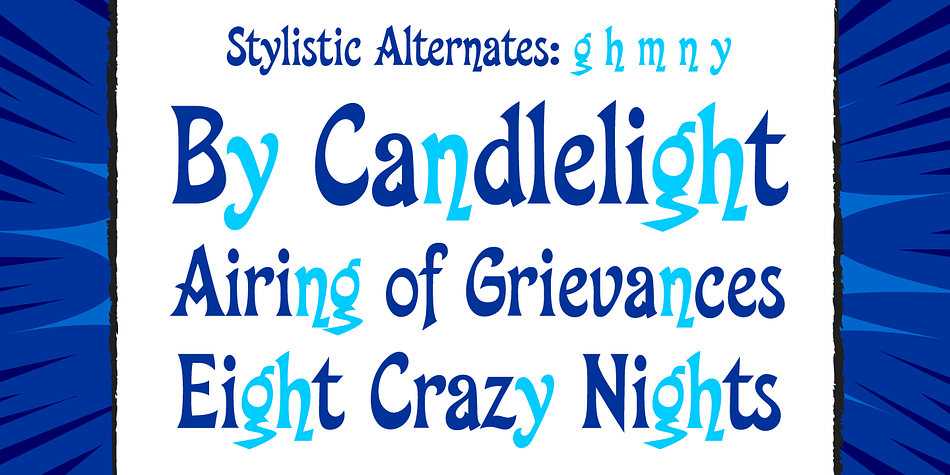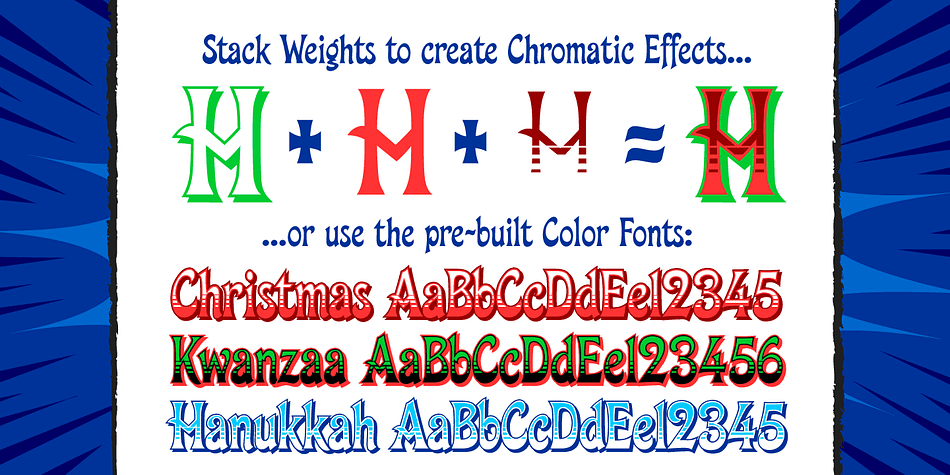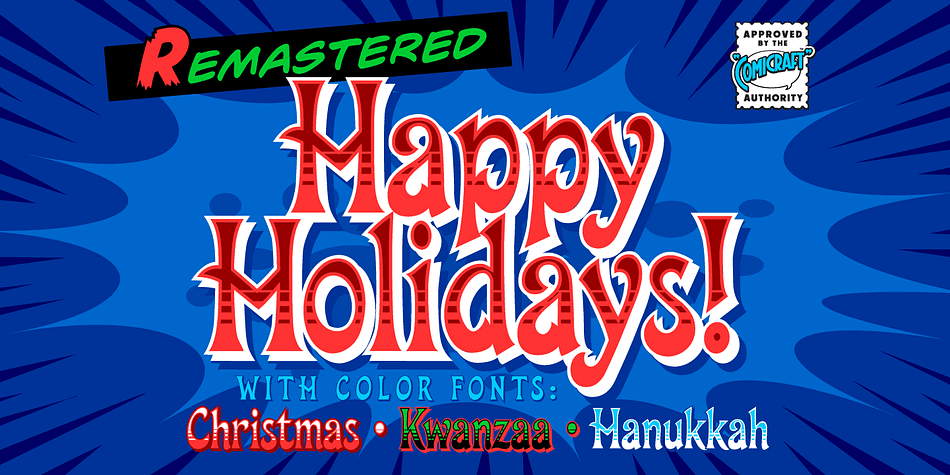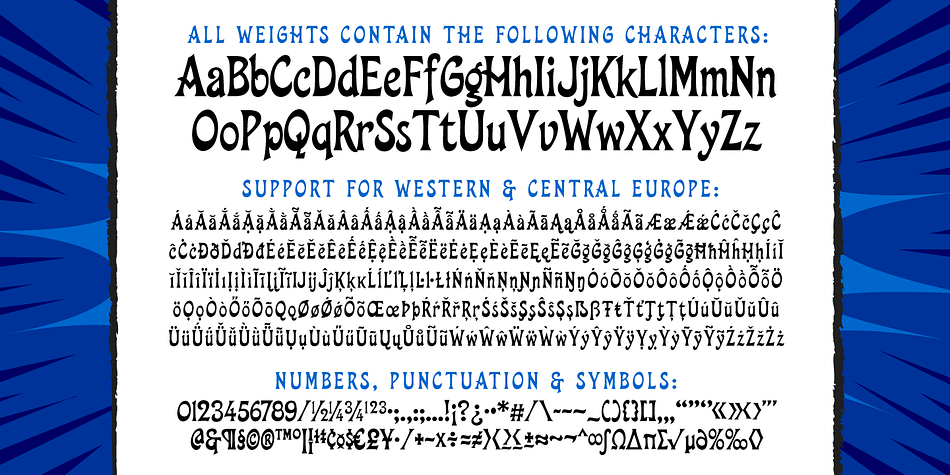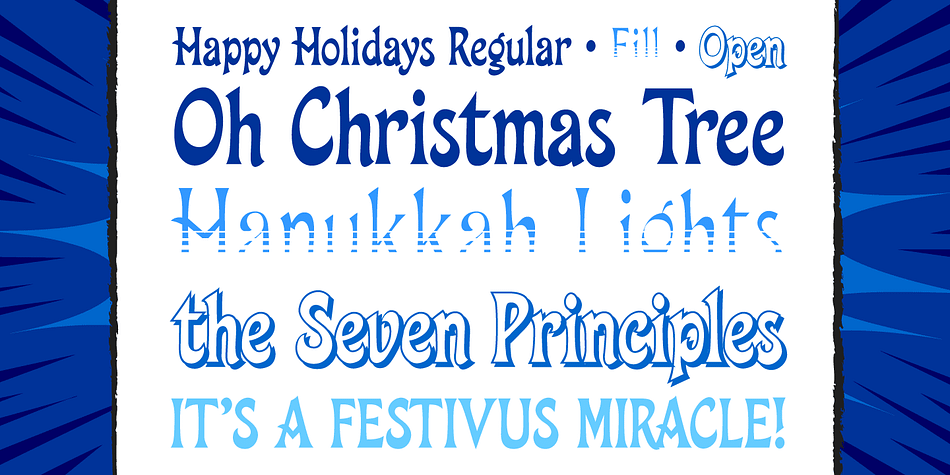
Designed by John Roshell, Happy Holidays is an art nouveau and retro font family. This typeface has three styles and was published by Comicraft.
The War on Christmas is OVER and Comicraft is here to announce the Winner! Take down your Menorahs, your Christmas trees, your reclining Buddhas and those red, yellow and green Kwanzaa decorations and be prepared to sprinkle nothing more than a little Season’s Greetings over your end of year celebrations. Red, white and green designs with Snowflake patterns and SnowmanySnowmen—much as you’ll see on the paper cup of your hot beverage of choice during the long dark coffee break of the soul that now stretches from Halloween through Thanksgiving to New Year’s Day—are permitted, but when you see your friends and neighbors at the department stores, just think of our fonts and greet them with a simple, cordial, non-denominational Happy Holidays!